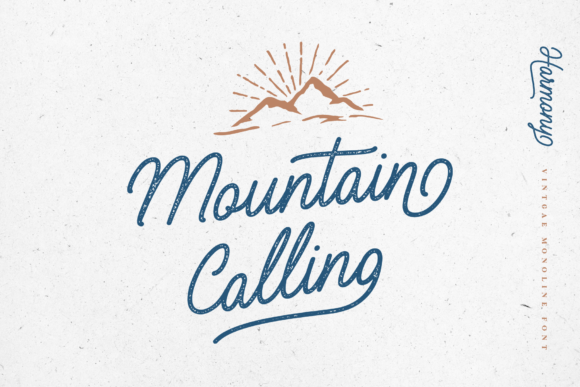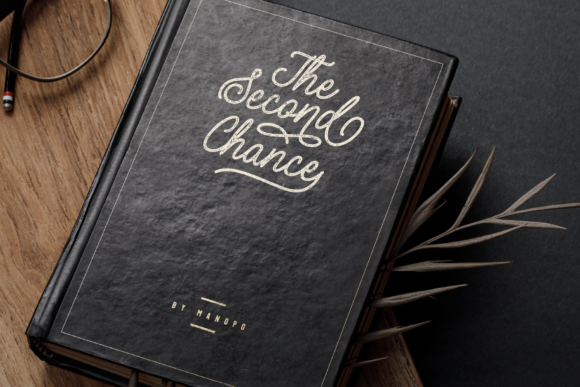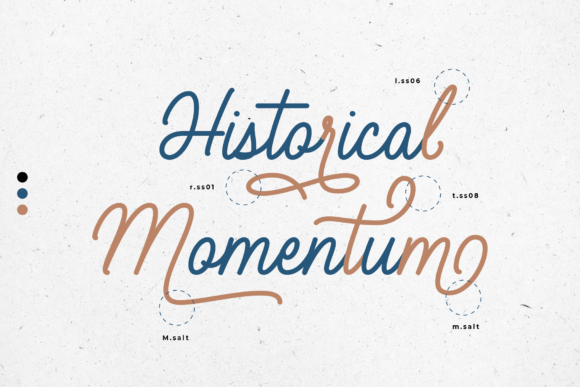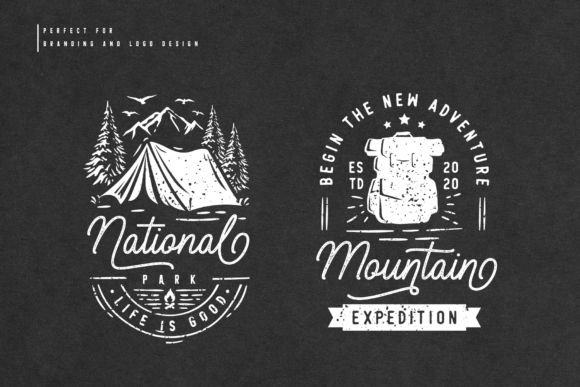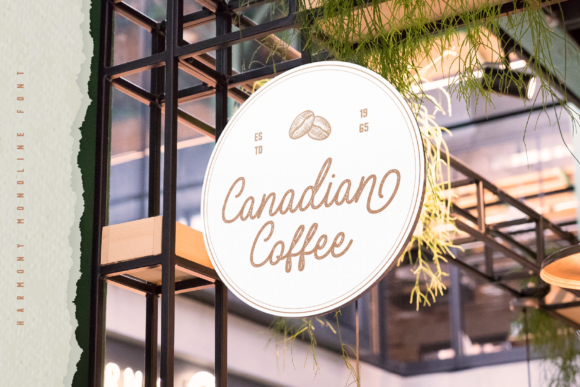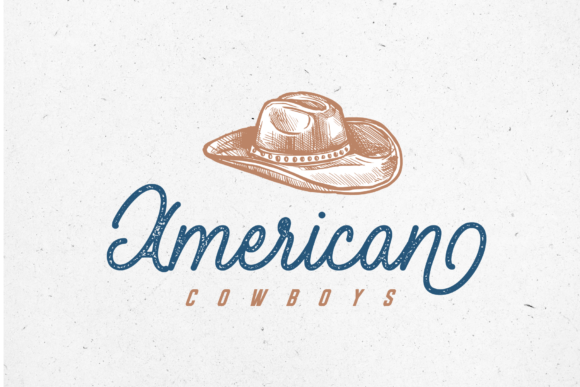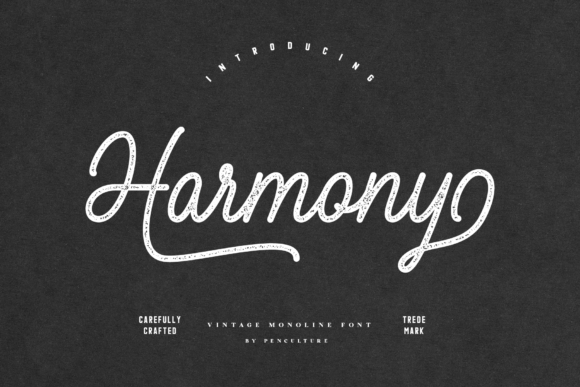
Introducing Harmony Font: Elevate Your Designs with Elegance and Class
Are you searching for a font that adds a touch of sophistication and refinement to your design projects? Look no further than Harmony Font, a beautifully crafted vintage-styled and subtle handwritten font. Designed with great care for maximum results, Harmony Font is the perfect choice for designers and crafters seeking to elevate their work with elegance and class.
The Characteristics of Harmony Font
Harmony Font boasts a unique blend of vintage charm and modern subtlety, making it an excellent addition to any design project. Its handwritten style is carefully crafted to convey a sense of warmth and personality, while its subtlety ensures that it remains versatile and easy to read. Whether you’re working on a logo, branding materials, or digital content, Harmony Font is sure to make a lasting impression.
One of the standout features of Harmony Font is its PUA (Private Use Area) encoding. This means that you can access all of the glyphs and swashes with ease, giving you maximum creative control over your designs. With PUA encoding, you can effortlessly navigate the font’s extensive character set, including alternative letters, ligatures, and decorative elements. This feature makes it simple to add a personal touch to your designs and bring your creative vision to life.
Harmony Font’s versatility makes it an excellent choice for a wide range of design projects. Whether you’re working on:
- Logos and branding materials: Add a touch of elegance and sophistication to your brand’s identity.
- Digital content: Elevate your blog posts, social media graphics, and website headers with a refined and classy font.
- Print materials: Use Harmony Font to add a personal touch to your business cards, brochures, and flyers.
- Crafting and DIY projects: Add a touch of handmade charm to your craft tutorials, patterns, and inspirational quotes.
Harmony Font is the perfect choice for any project that requires a high level of elegance and refinement.
Why Choose Harmony Font?
With so many fonts available, why choose Harmony Font? Here are just a few reasons why designers and crafters love this beautiful font:
- Unique and distinctive style: Harmony Font’s vintage-styled and subtle handwritten design sets it apart from more generic fonts.
- Ease of use: PUA encoding makes it simple to access all of the font’s glyphs and swashes.
- Versatility: Harmony Font is suitable for a wide range of design projects and applications.
- Elegance and class: Add a touch of sophistication and refinement to your designs with Harmony Font.